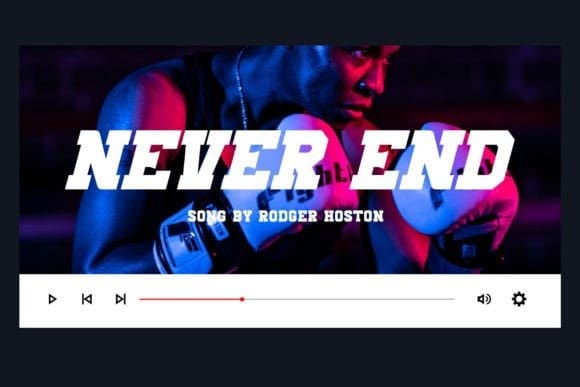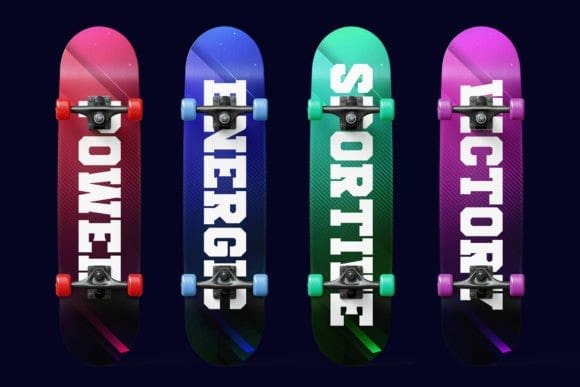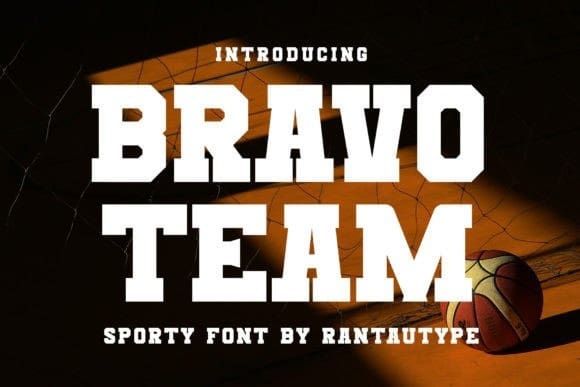
Bravo Team Font
Bravo Team Font is a cool, bold display font designed to evoke speed and excitement. With its sleek lines and dynamic curves, this font exudes energy and movement, making it ideal for automotive-related designs, sports posters, and any project that needs a touch of adrenaline-fueled style.